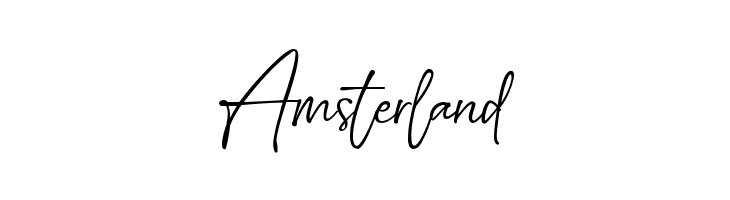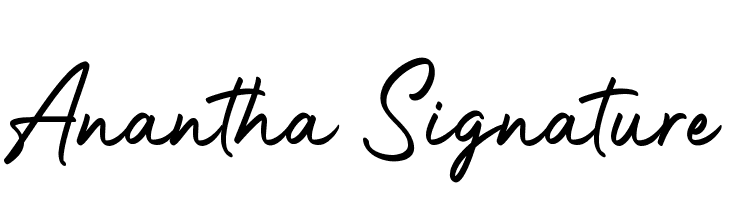
A bold, hand-drawn sketch font with textured, cross-hatched characters.
A playful, handwritten font with tall, narrow letters and a casual style.
A bold, geometric font with strong, uniform strokes and a modern yet vintage appeal.
A bold, playful script font with dynamic and flowing letterforms.
A cursive, handwritten script font with elegant, flowing strokes.
A flowing, cursive script font with smooth, rounded edges and consistent stroke width.
An elegant script font with flowing, cursive letters and ornate flourishes.
A playful and dynamic script font with bold, fluid letterforms.
A bold, geometric font with strong, modern letterforms.
A modern, geometric font with clean lines and balanced spacing.
An elegant and flowing script font with dynamic, cursive letterforms.
A bold, playful font with rounded strokes and a graffiti-like style.
A bold, playful font with exaggerated curves and a cartoonish style.
A bold, playful font with thick, rounded shapes and a whimsical style.
A bold, geometric font with a futuristic and edgy design.
A fluid and elegant handwritten font with dynamic curves and playful special characters.
A bold, vintage-inspired font perfect for impactful headlines.
A bold, playful handwritten font with dynamic strokes and a casual style.
A classic serif font with modern elements and elegant proportions.
A bold, condensed font with strong, uniform strokes.
A playful, bone-like font with a hand-drawn appearance.
A bold, dynamic script font with flowing, cursive letterforms.
A playful, casual handwritten font with smooth, flowing lines.
A dynamic and expressive script font with fluid, sweeping strokes.
A modern, geometric sans-serif font with tall, narrow characters and uniform stroke width.
A bold, modern sans-serif font with clean lines and uniform strokes.
A lively script font with fluid, connected strokes and a handwritten feel.
A bold, decorative font with high contrast and artistic flair.
A lively and elegant script font with smooth, flowing curves.
A playful handwritten font with a modern, casual style.
A playful, bold font with a hand-drawn, friendly appearance.
A bold, expressive handwritten font with dynamic strokes and playful curves.
A playful, rounded font with smooth curves and consistent stroke width.